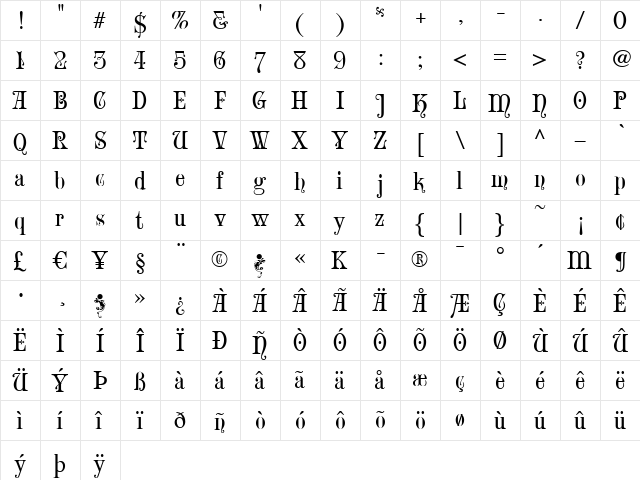
Iskola Regular
Design Context for Iskola Typeface
Iskola is a composed and adaptable typeface that performs quietly and consistently across a wide range of design contexts.